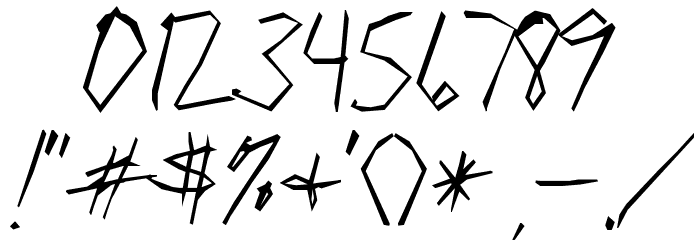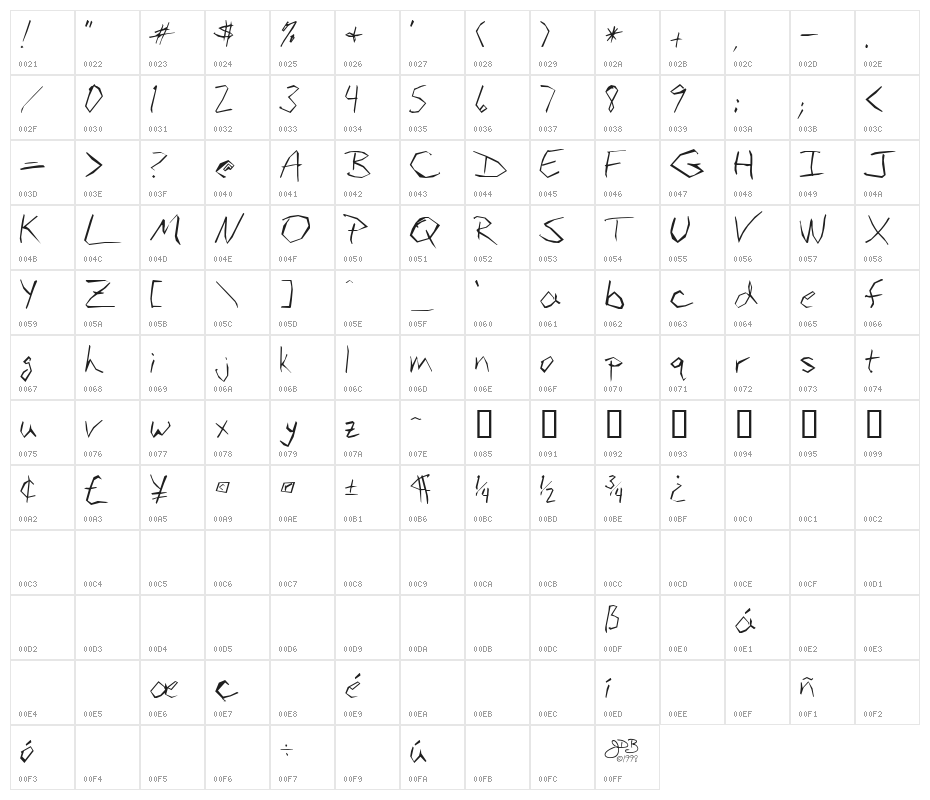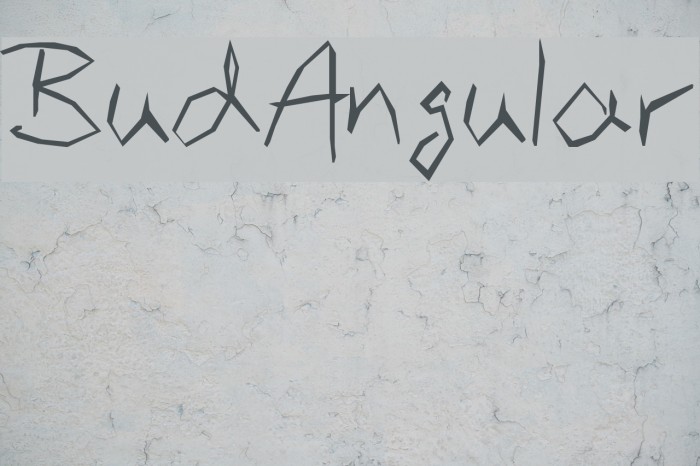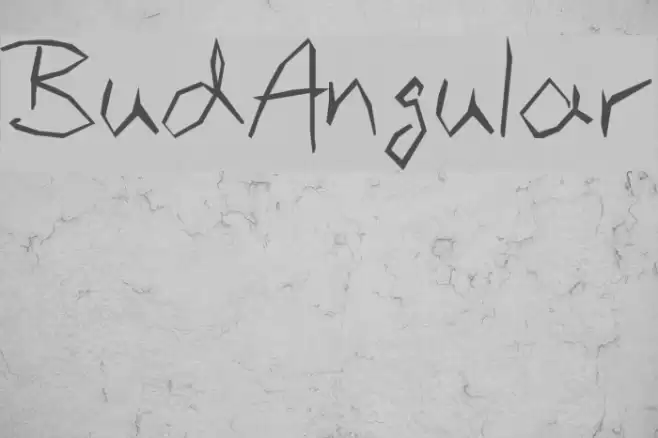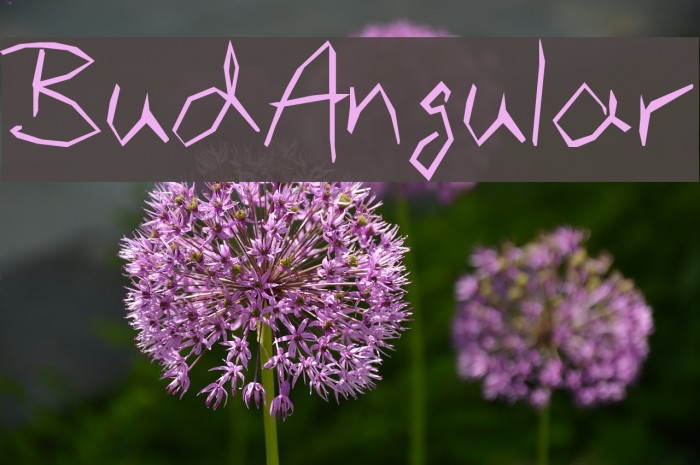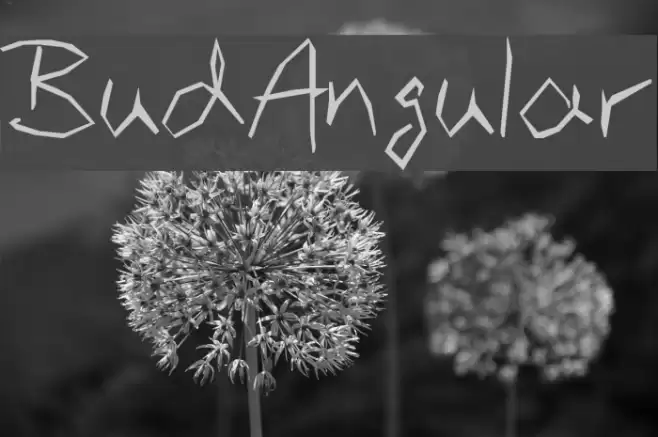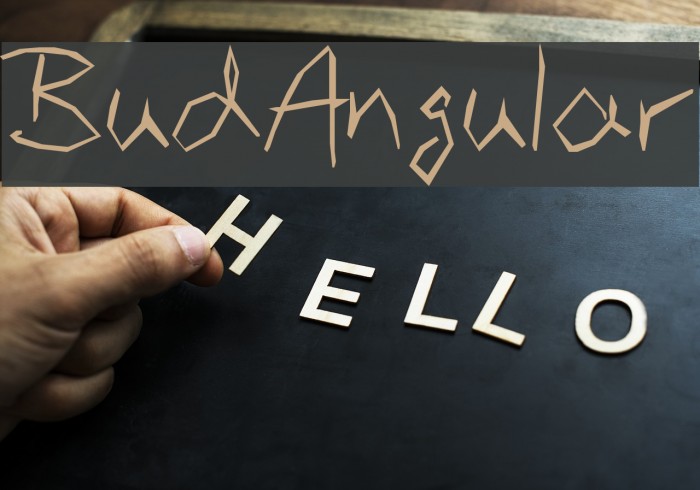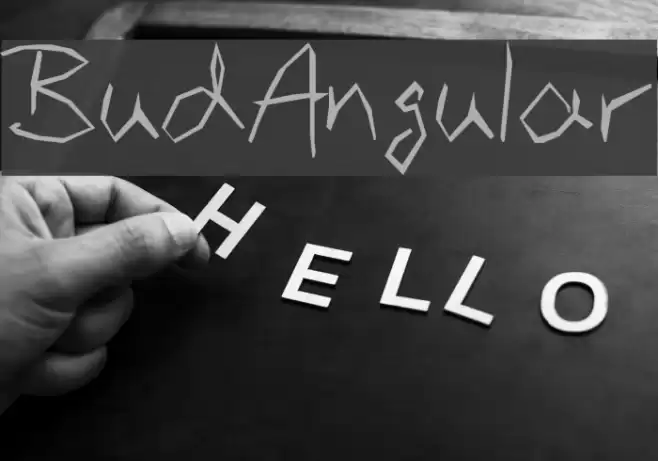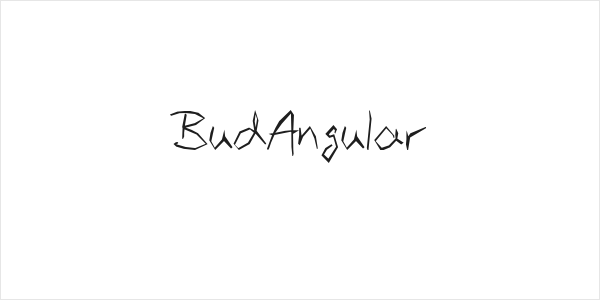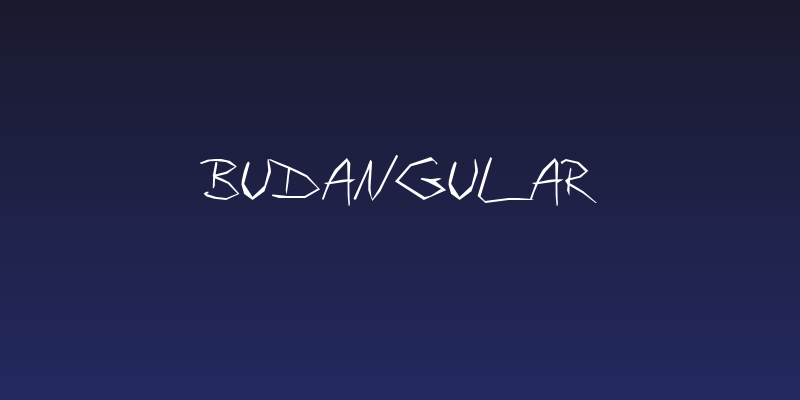
BudAngular Font
BudAngular Description
This font features an angular and edgy design, characterized by sharp, jagged lines and a hand-drawn appearance. The uppercase and lowercase letters maintain a consistent angular style, giving the font a dynamic and energetic feel. The numerals and special characters follow the same design principles, ensuring uniformity across all glyphs. The font's unique style makes it stand out, offering a modern twist on traditional handwritten fonts. Its irregular strokes and varied line thickness add to its distinctive look, making it suitable for creative and artistic projects.
| Proposed Projects | Ideal for album covers, posters, graffiti art, and edgy branding projects. |